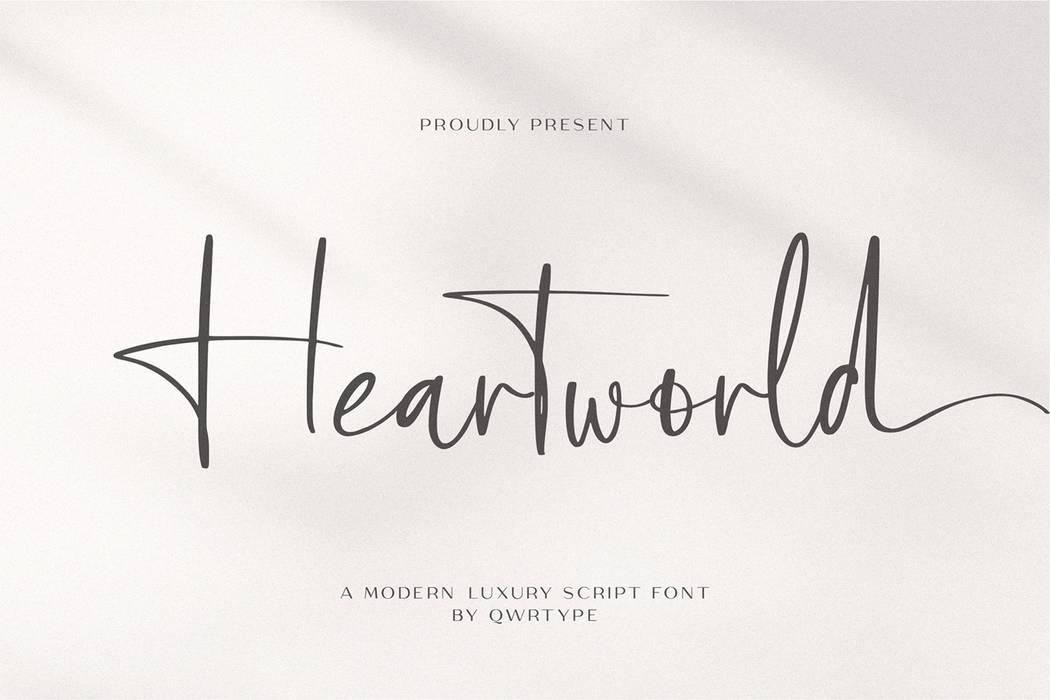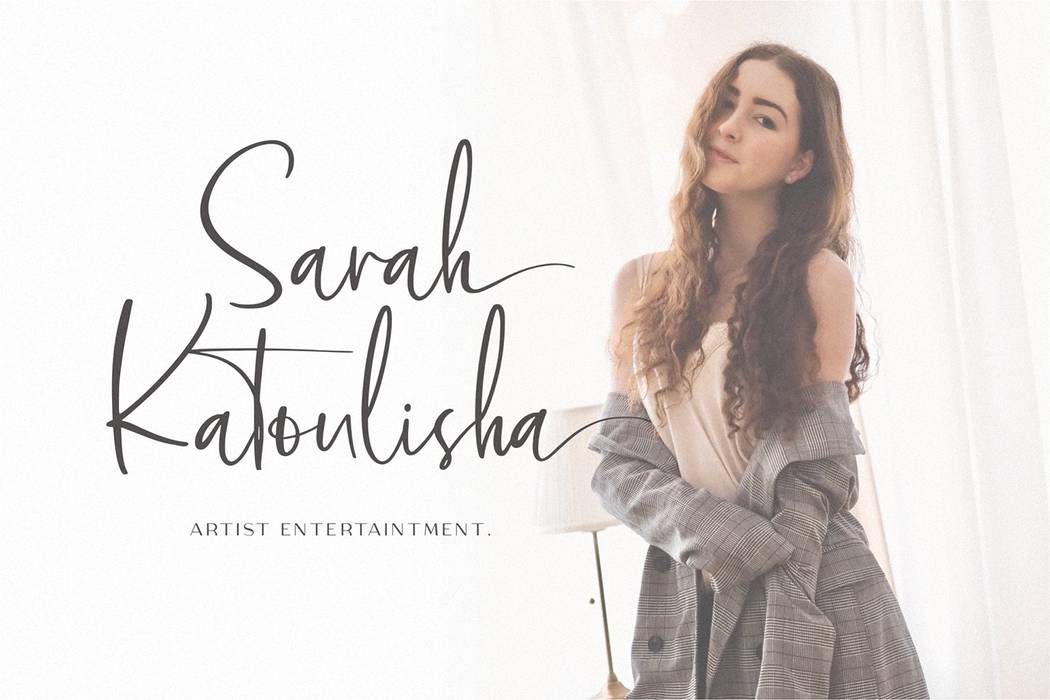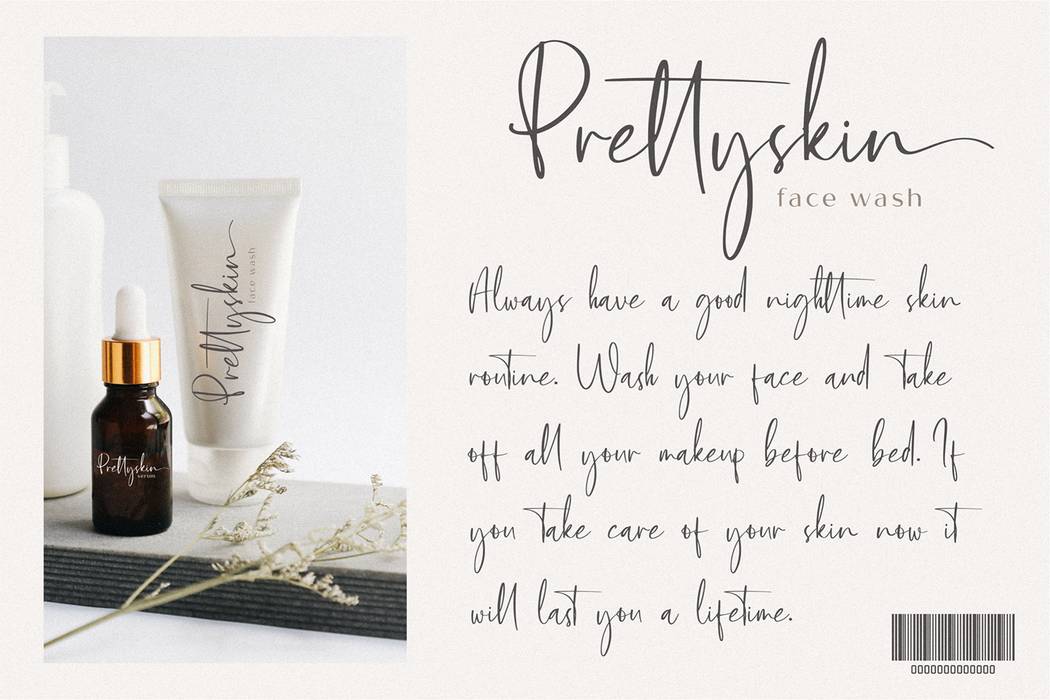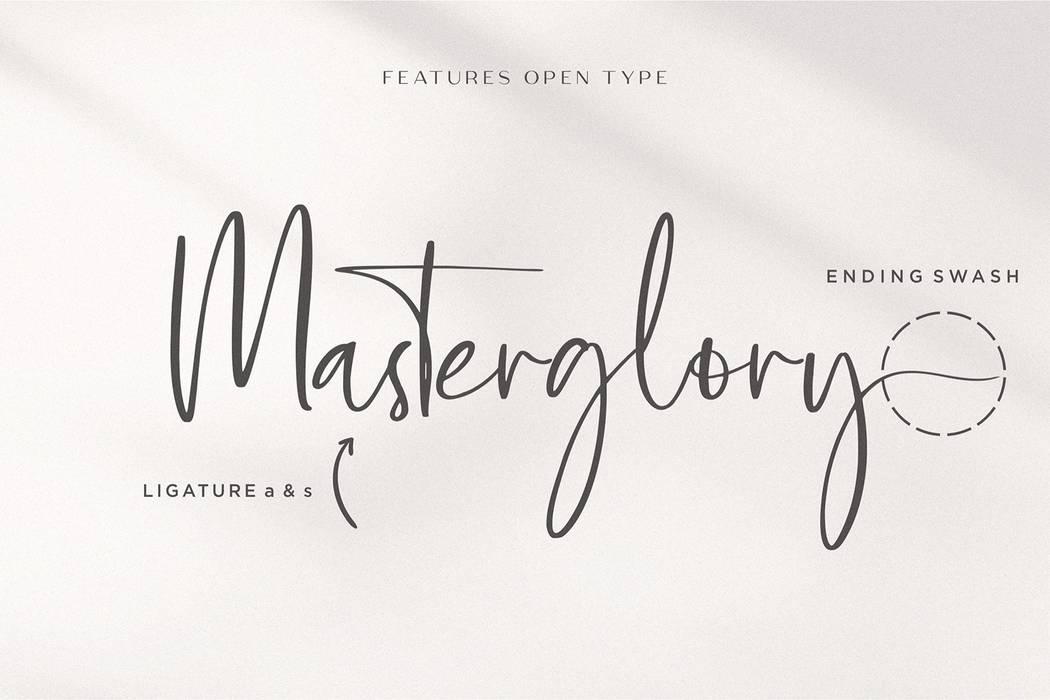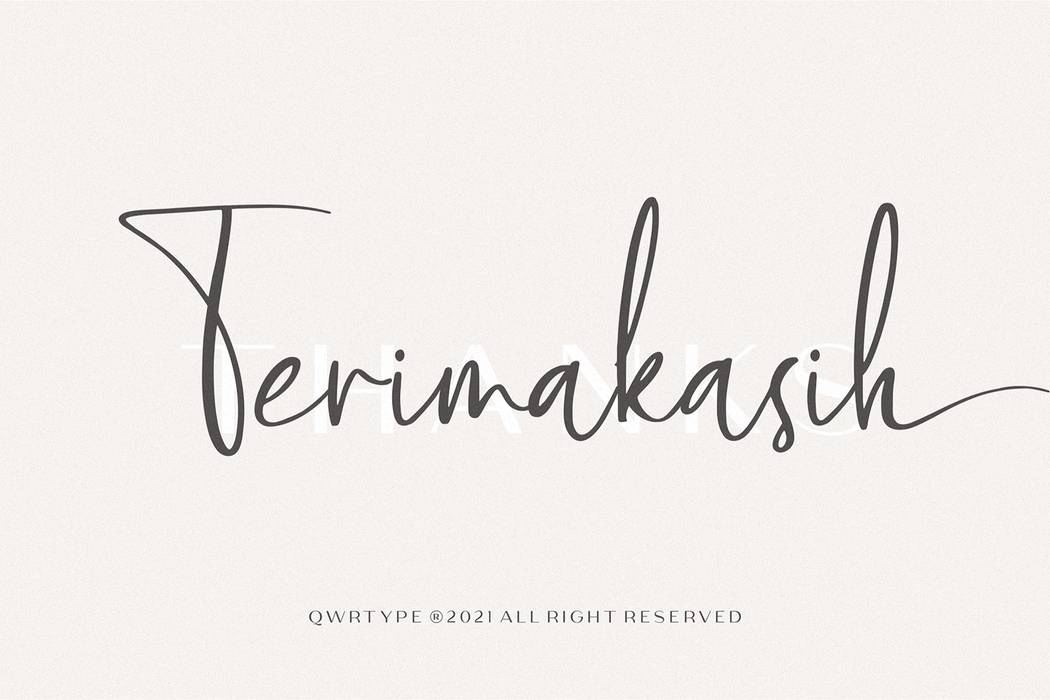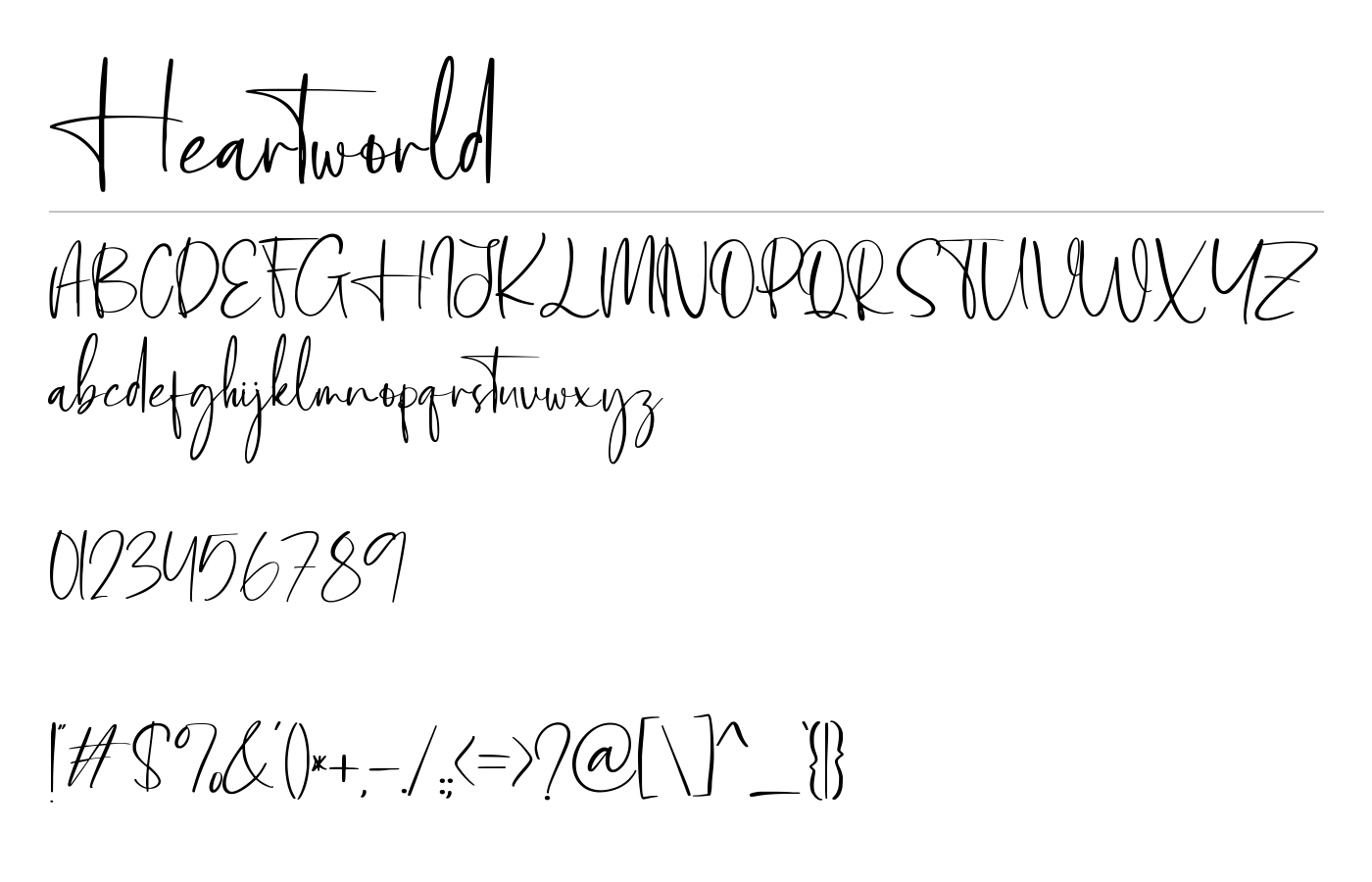
Heartworld is a delicate, hand-drawn script font with a tall, narrow structure and a playful, casual vibe. Its thin, uneven strokes and whimsical letterforms give it a personal, expressive feel, making it perfect for creative projects, personal branding, and invitations where a unique, intimate touch is desired. This font shines in designs that need a modern yet organic look, capturing attention with its charming, handwritten style.
Heartworld Font
About Heartworld Font
| Font family | Heartworld Font |